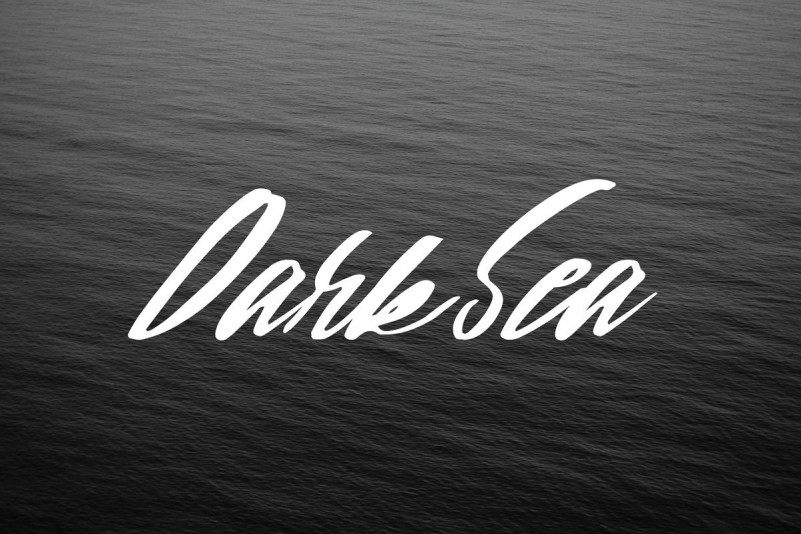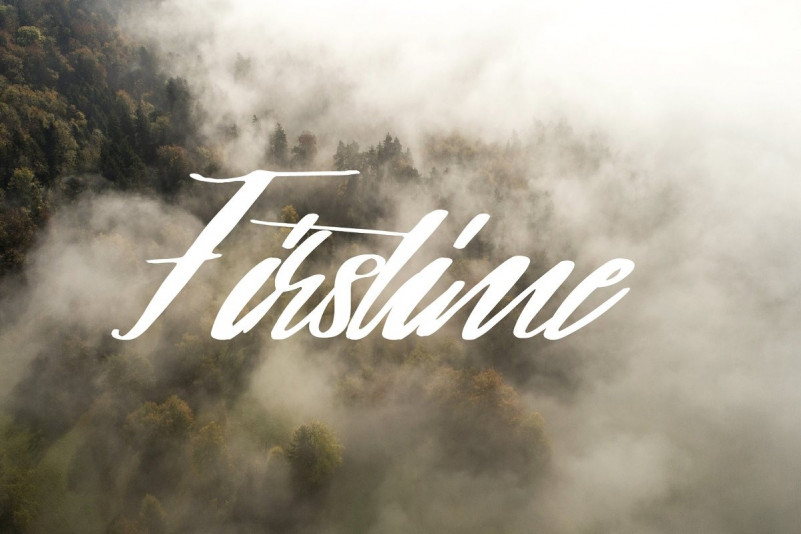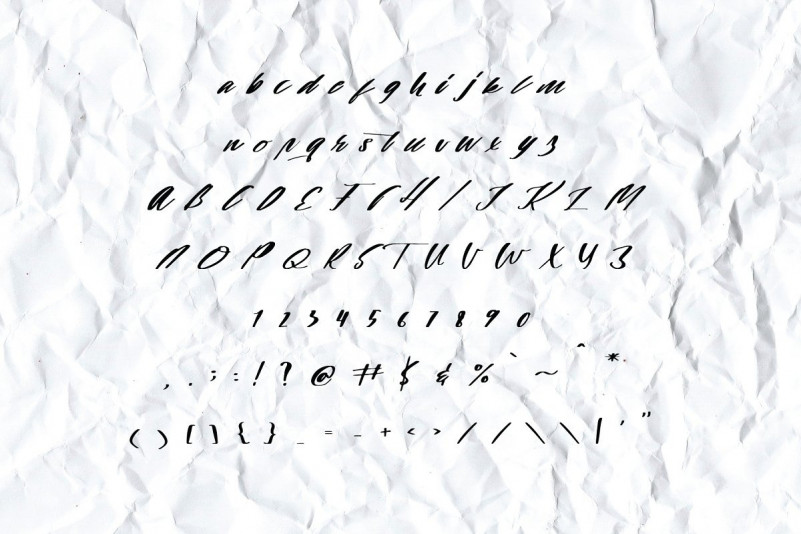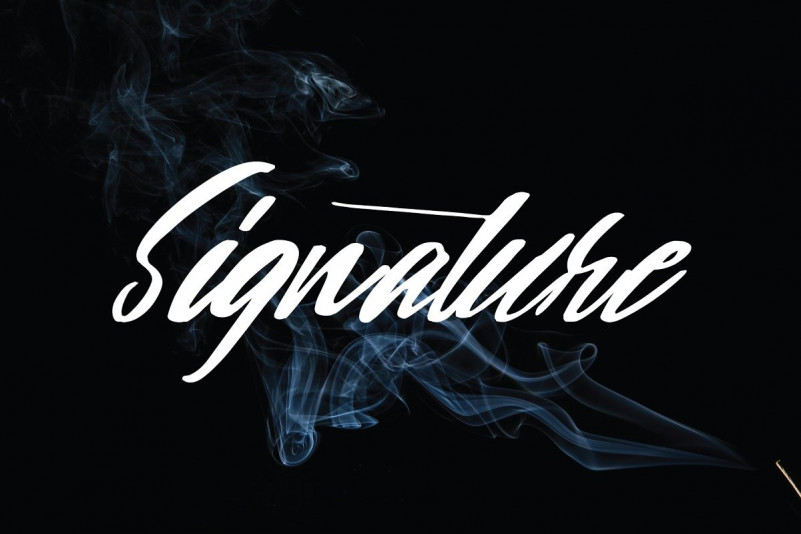
Firstime Script Font
Firstime Script Font is a handlettered script font with a calligraphy style. Made by hand written with many opentype features that you will like. Firstime Font designed and shared by goodigital. It’s a font display that is made by hand, inspired by classic posters. Perfect for branding projects, logo, wedding designs, social media posts, advertisements, product packaging, product designs, label, photography, watermark, invitation, stationery and any projects that need handwriting taste.